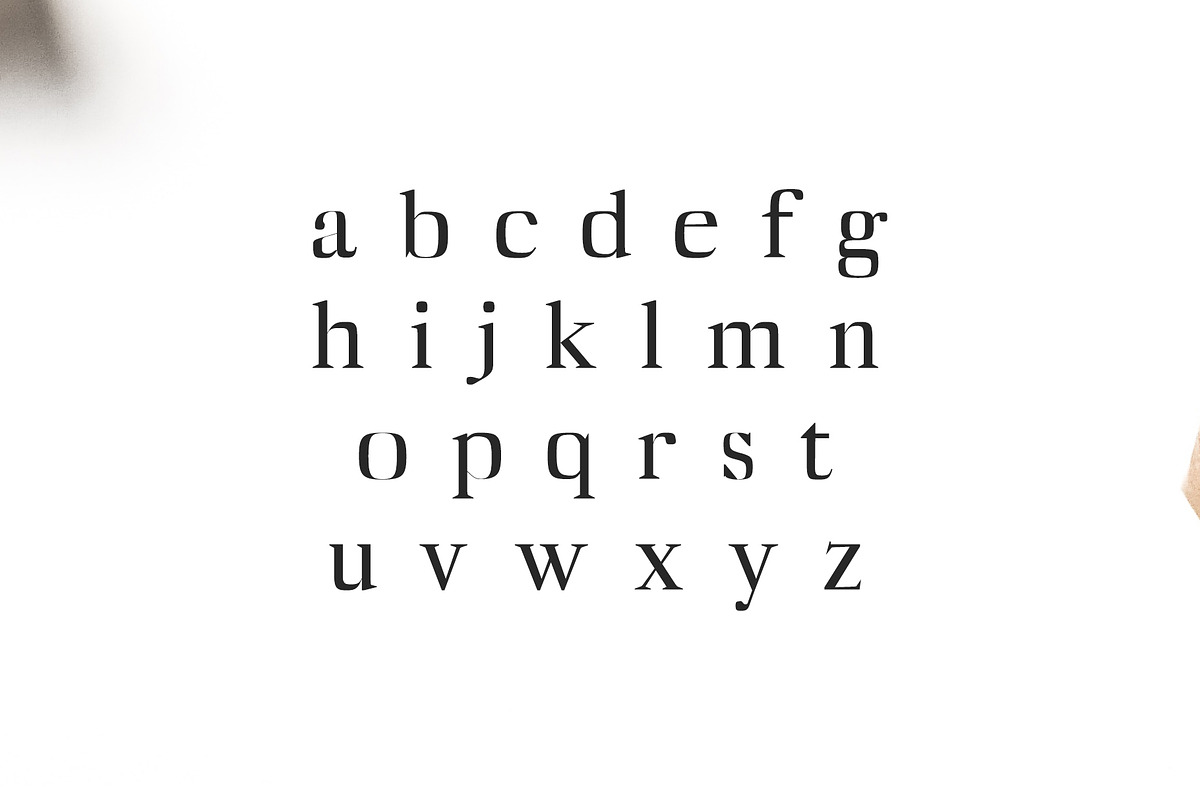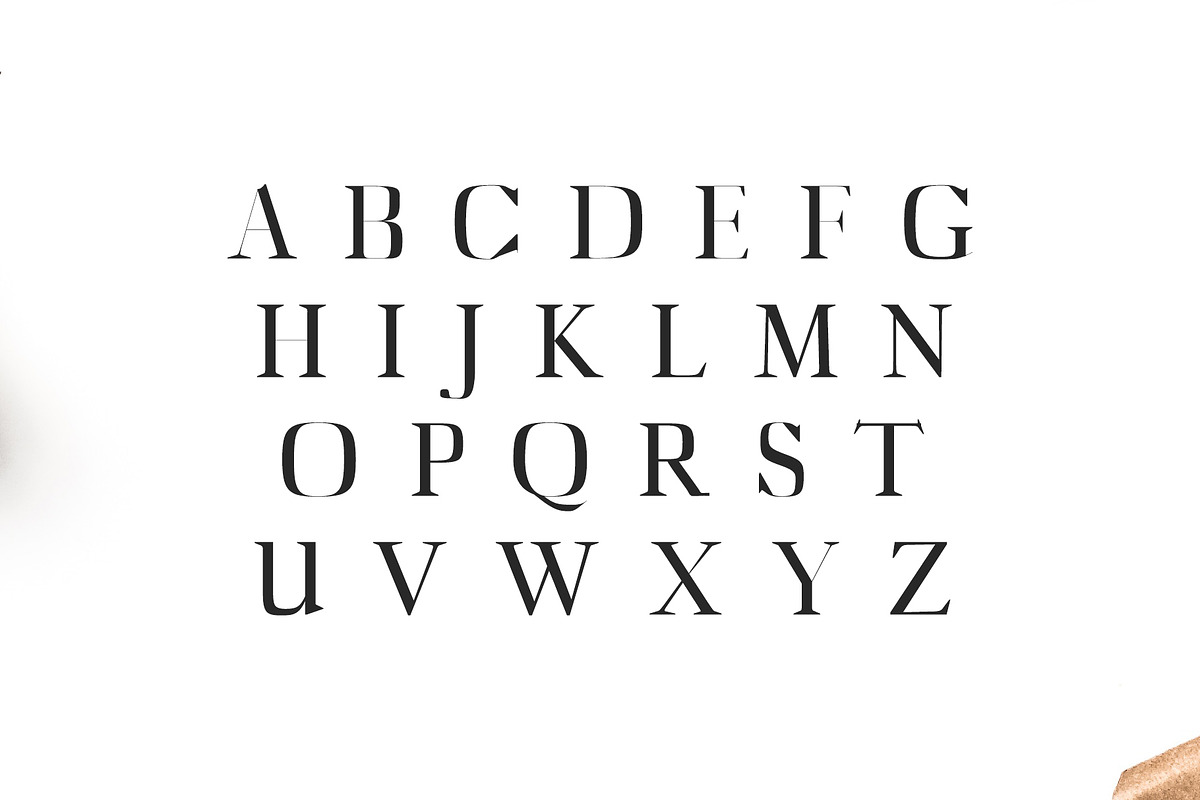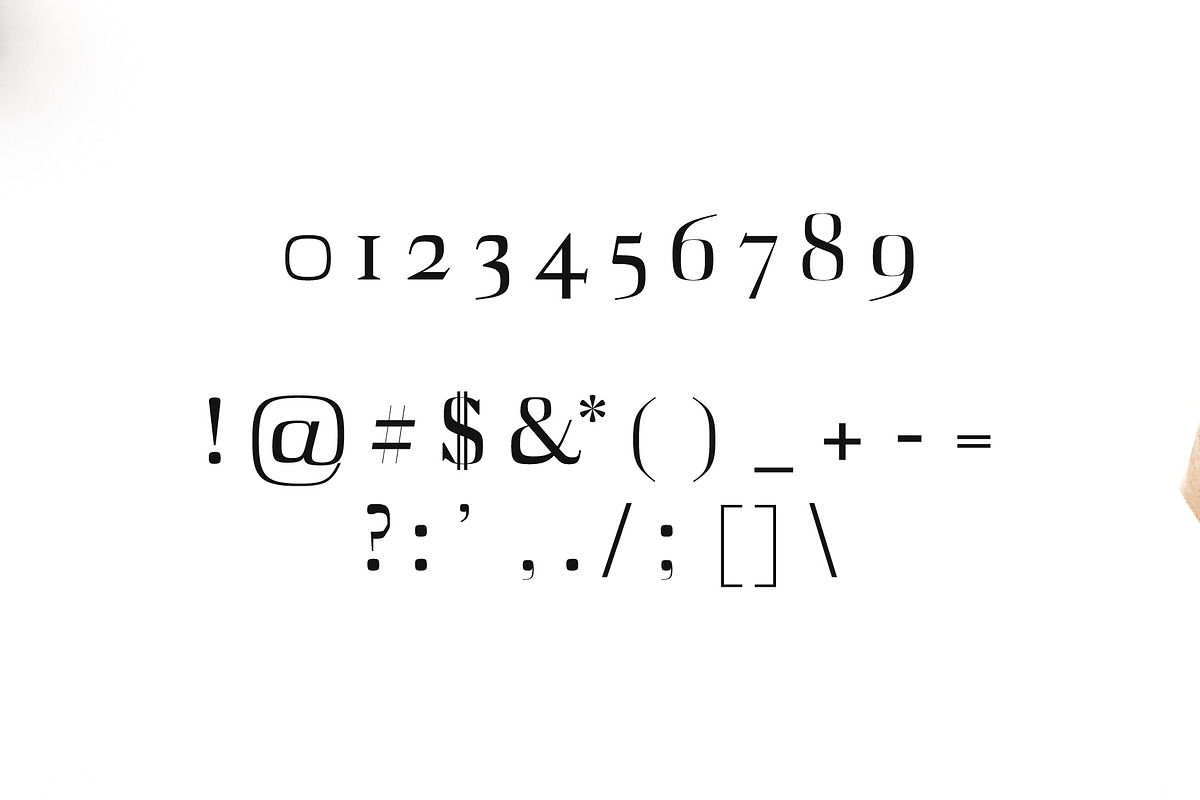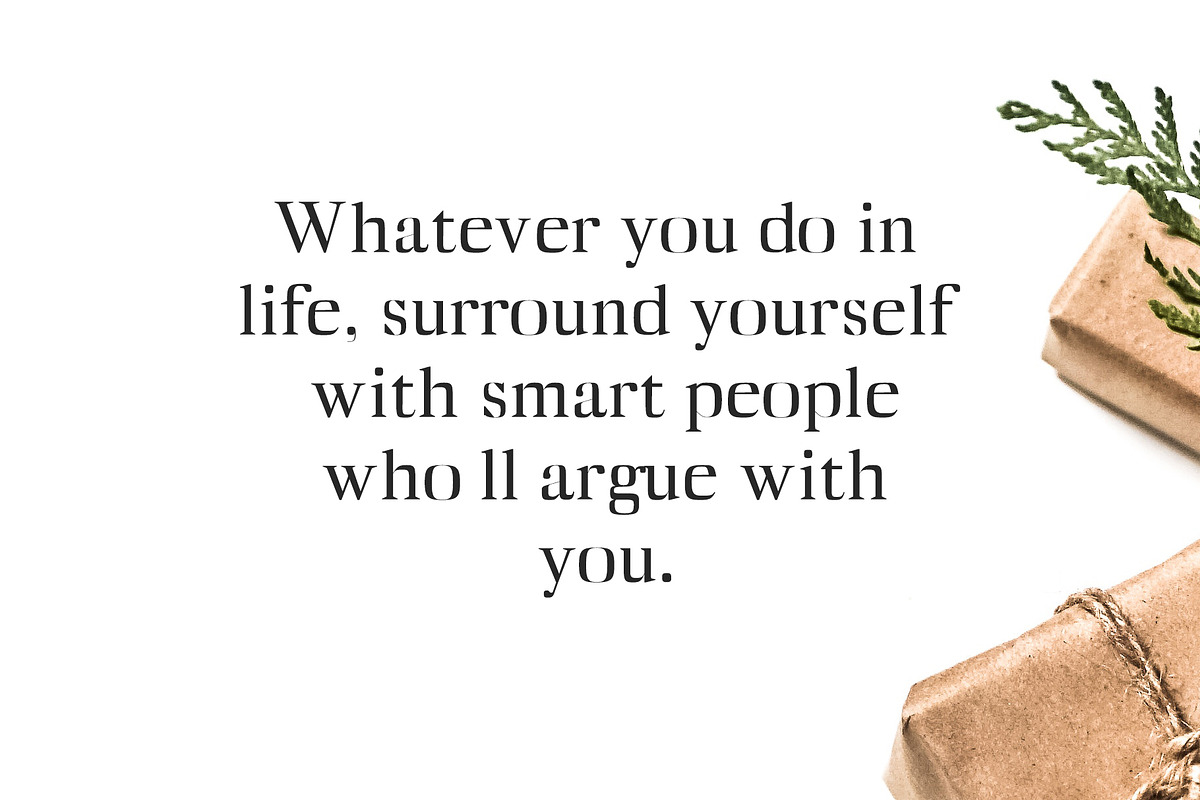
Abner Serif Font Family
Abner Serif Font Family by Creativetacos is a font selected for branding, posters, packaging, typography.
- Regular, Light, Thin, Black & Bold
- Abner Thin
- Abner Light
- Abner Regular
- Abner Bold
- Abner ExtraBold
Why Abner Serif Font Family is worth a look
Abner Serif Font Family by Creativetacos fits naturally into Branding, posters, packaging, typography.